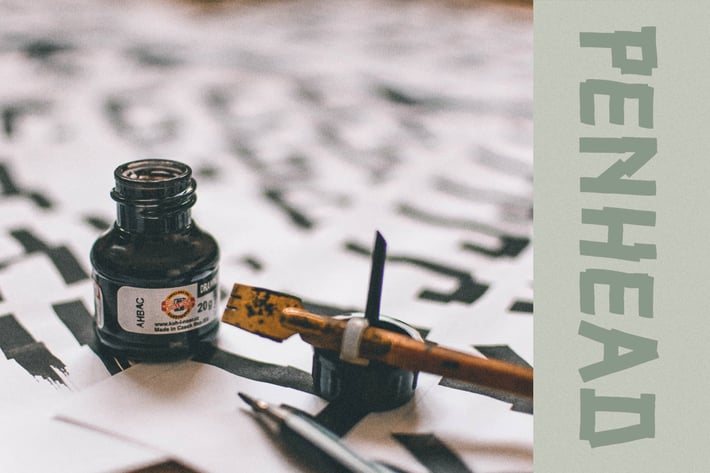
Peanhead Typeface| Pen Stroke Font
Take your design game to the next level with a hyper realistic font that truly looks handwritten. Penhead is an authentic looking fonts that grabs the attention of your customers and designers alike. Each letter was designed many times until it was considered perfect, and then edited to get that authentic texture.